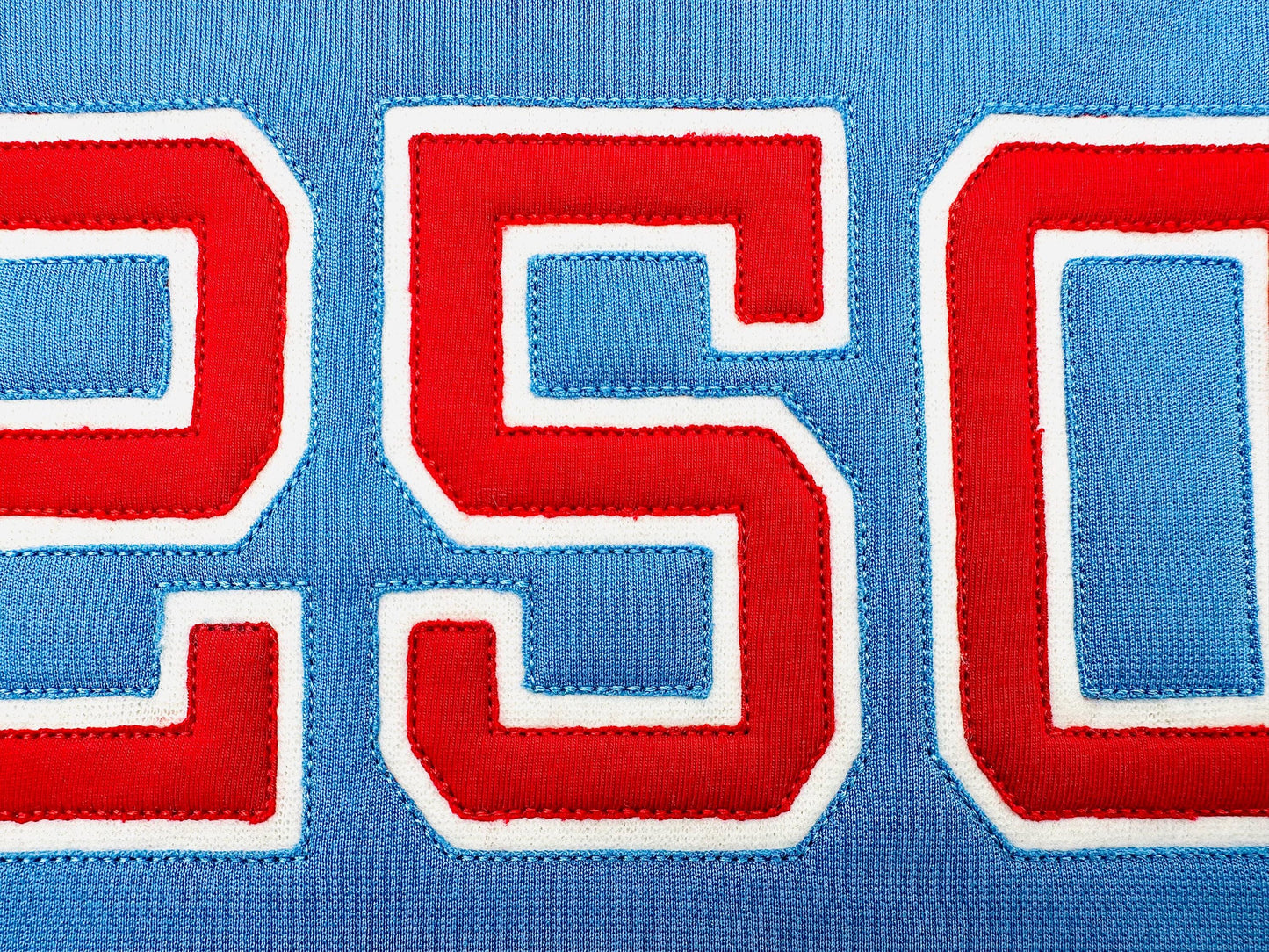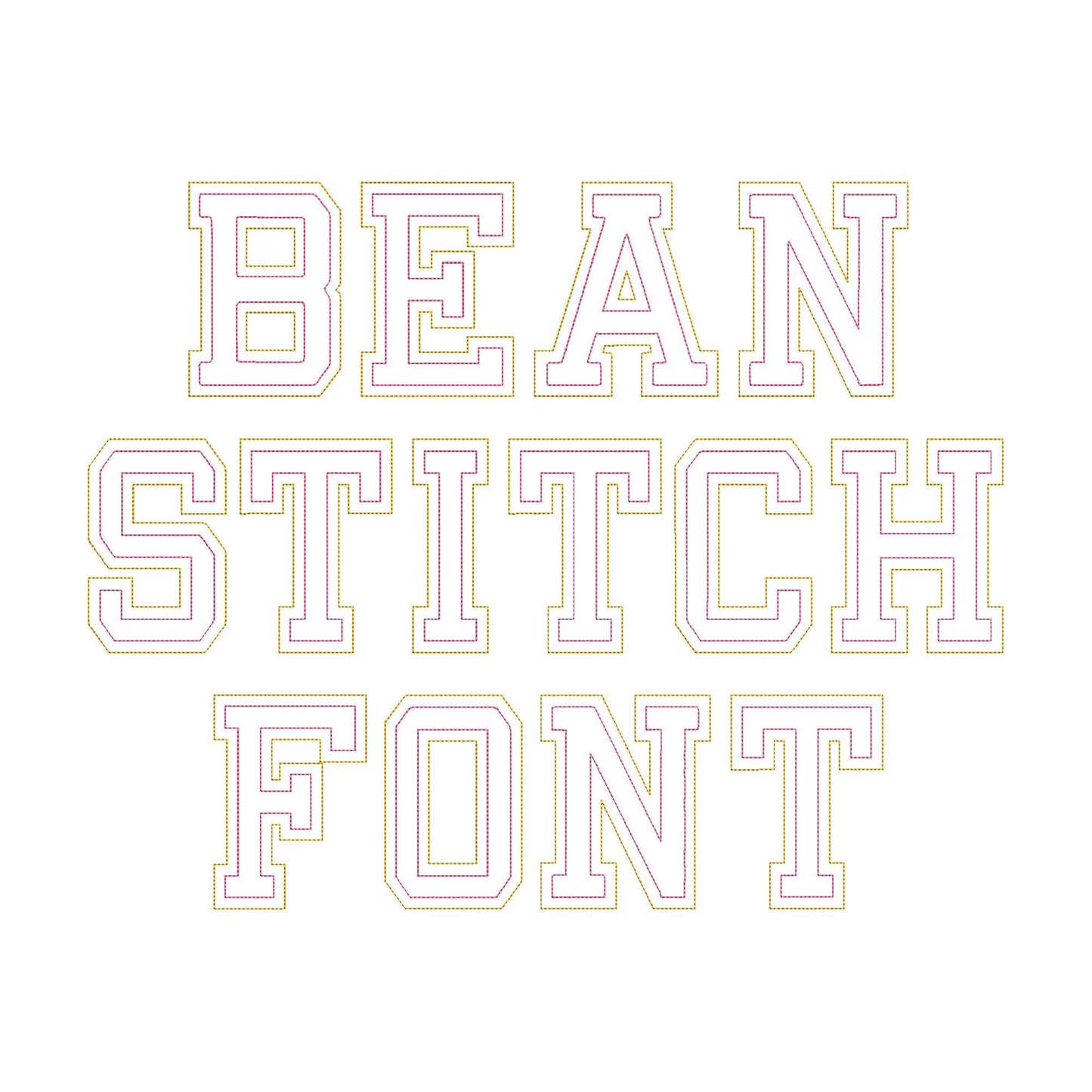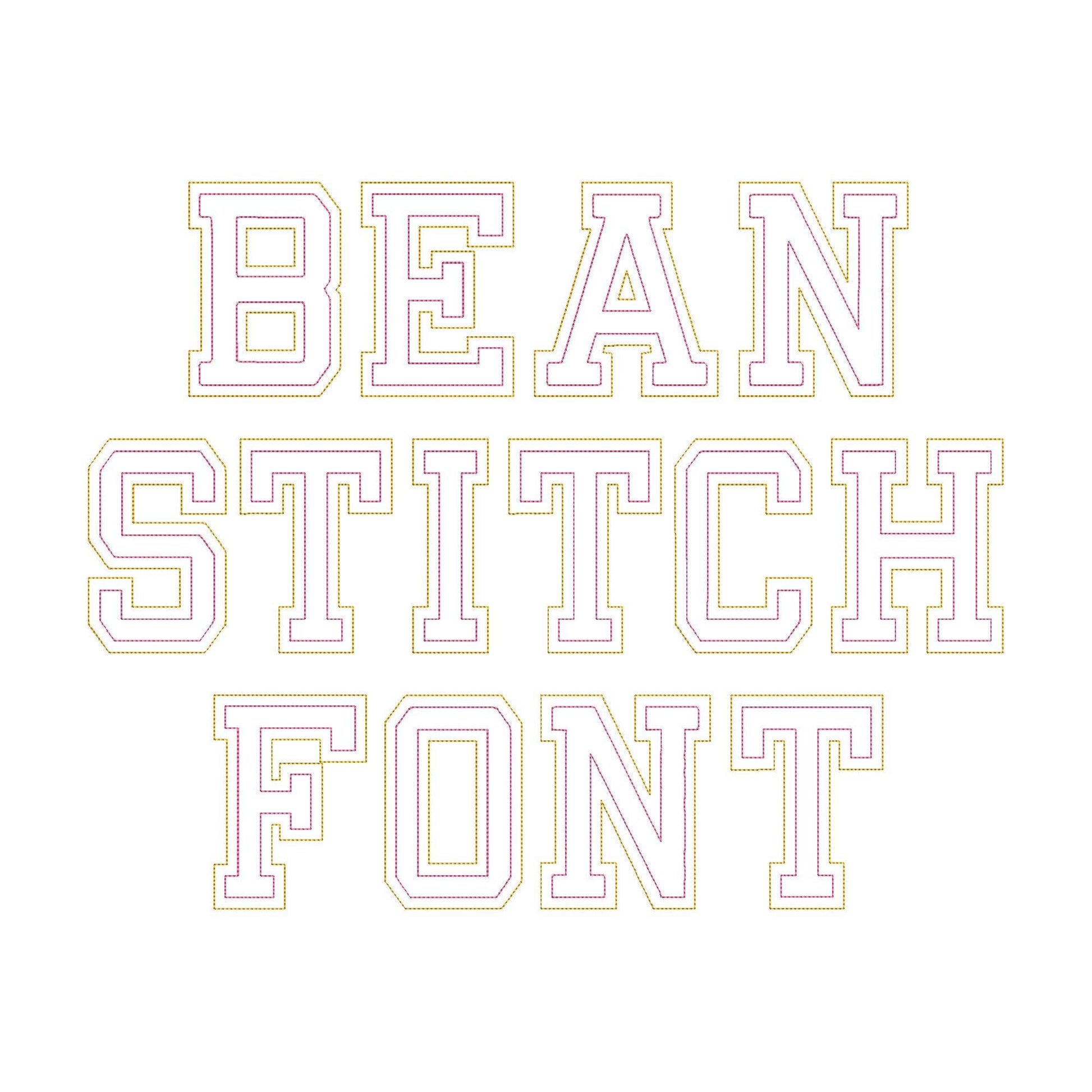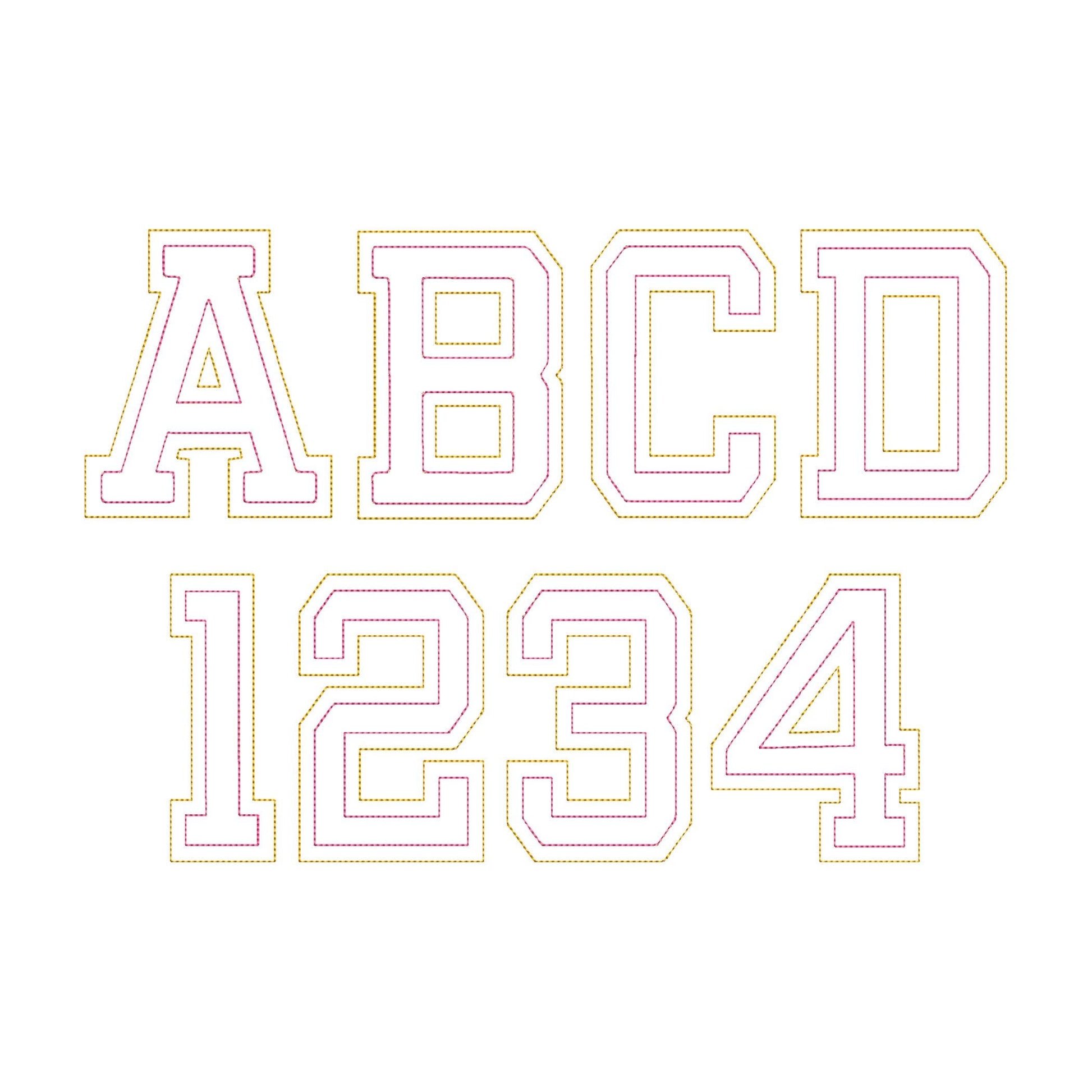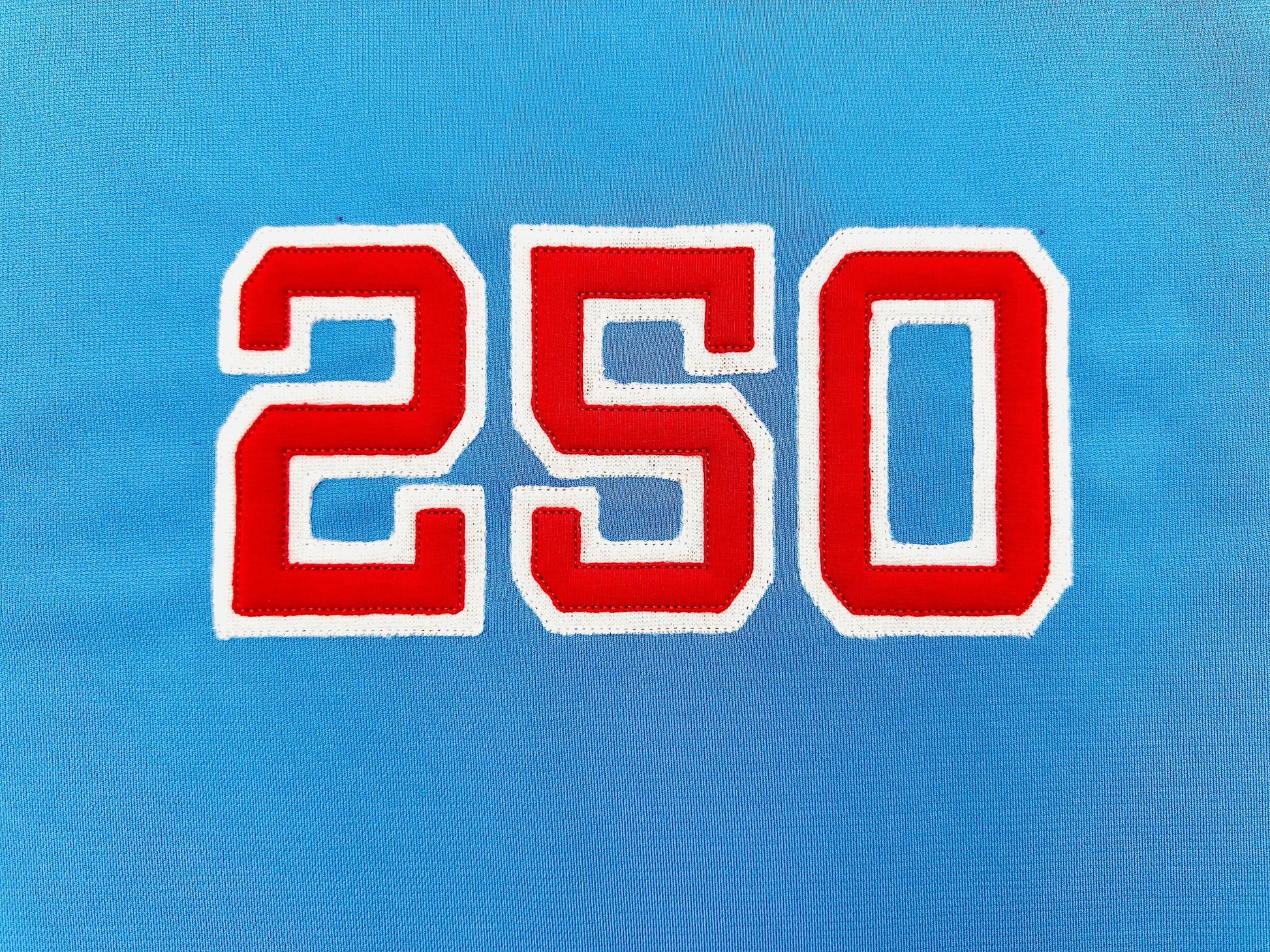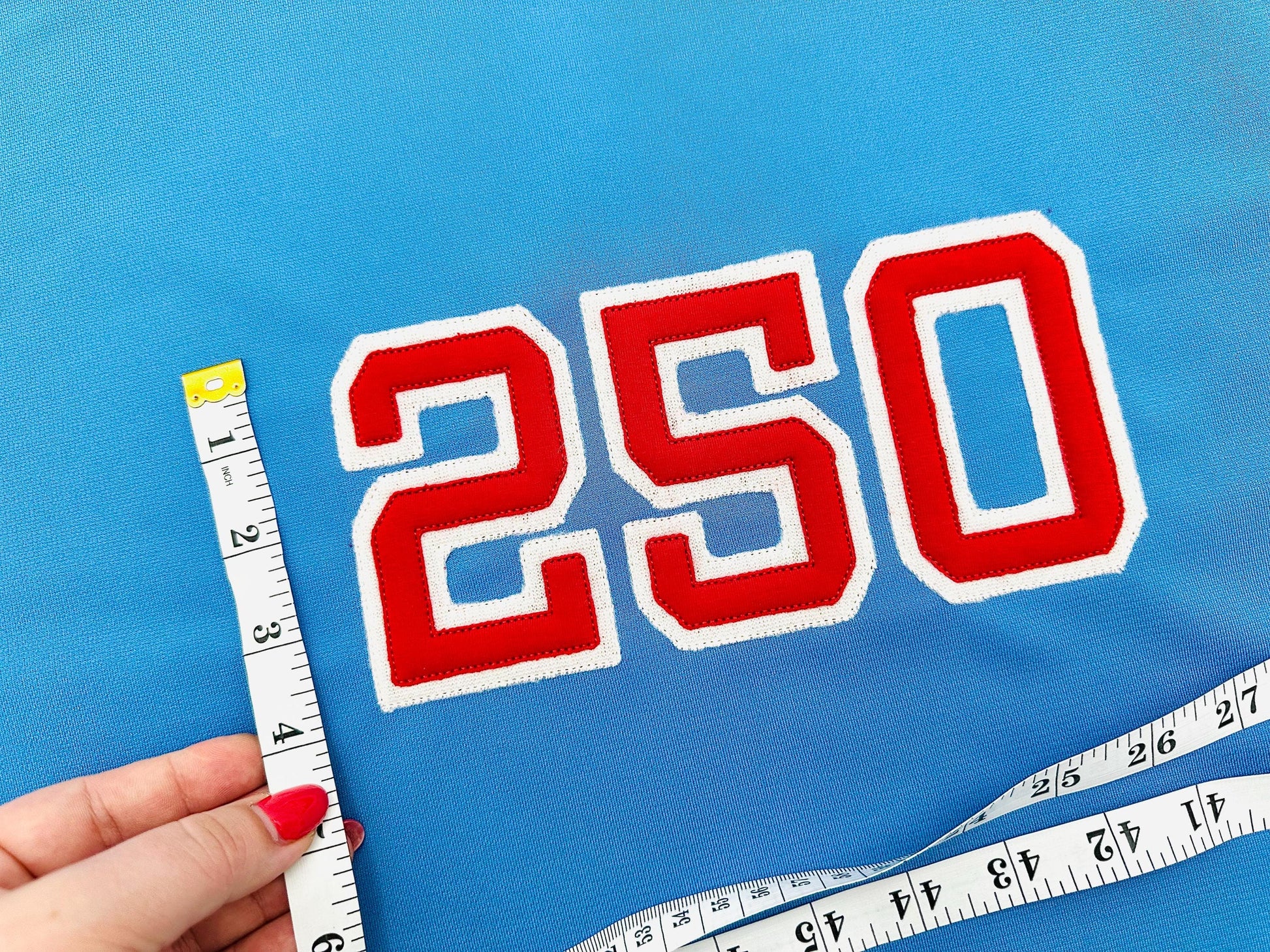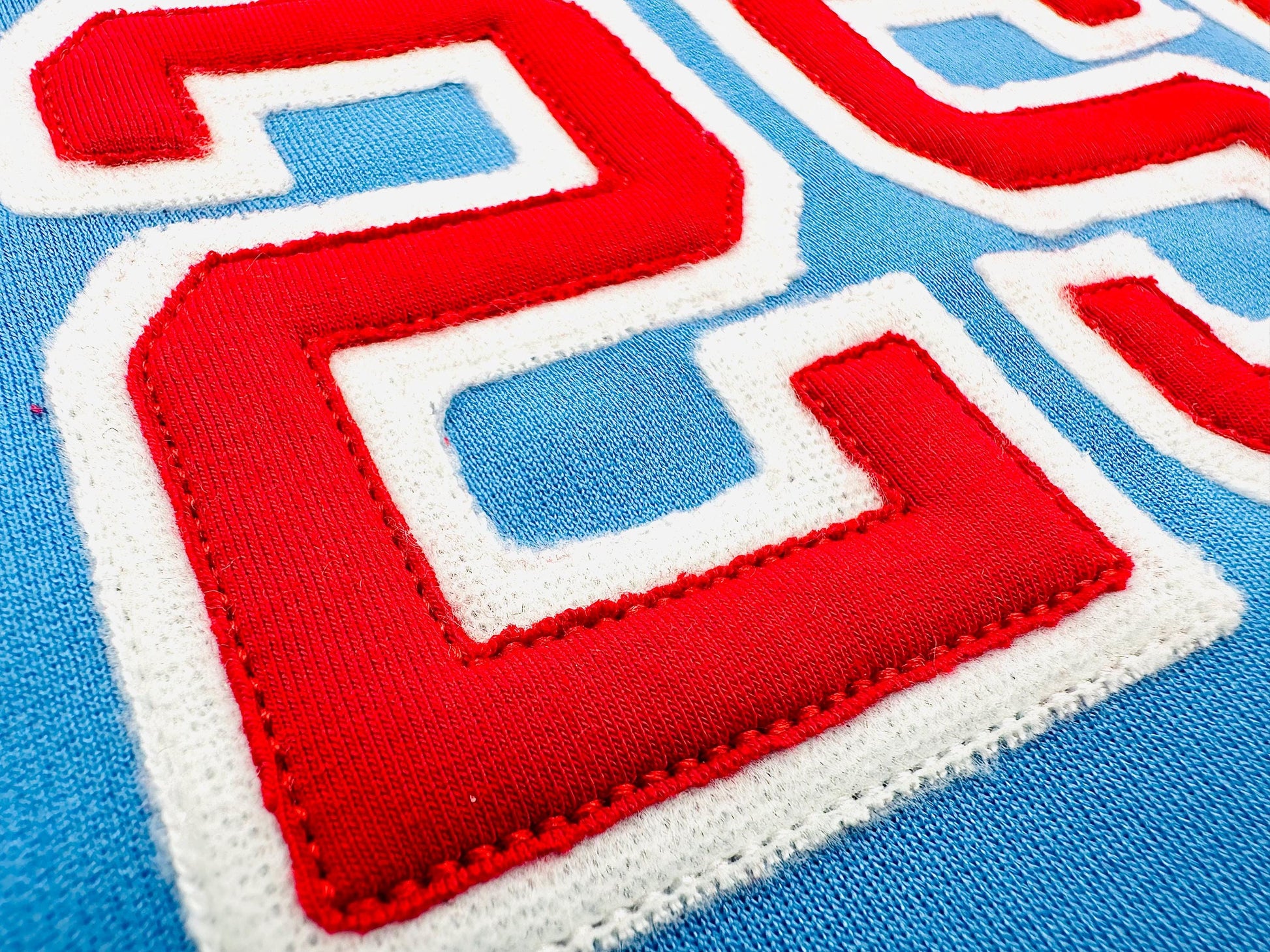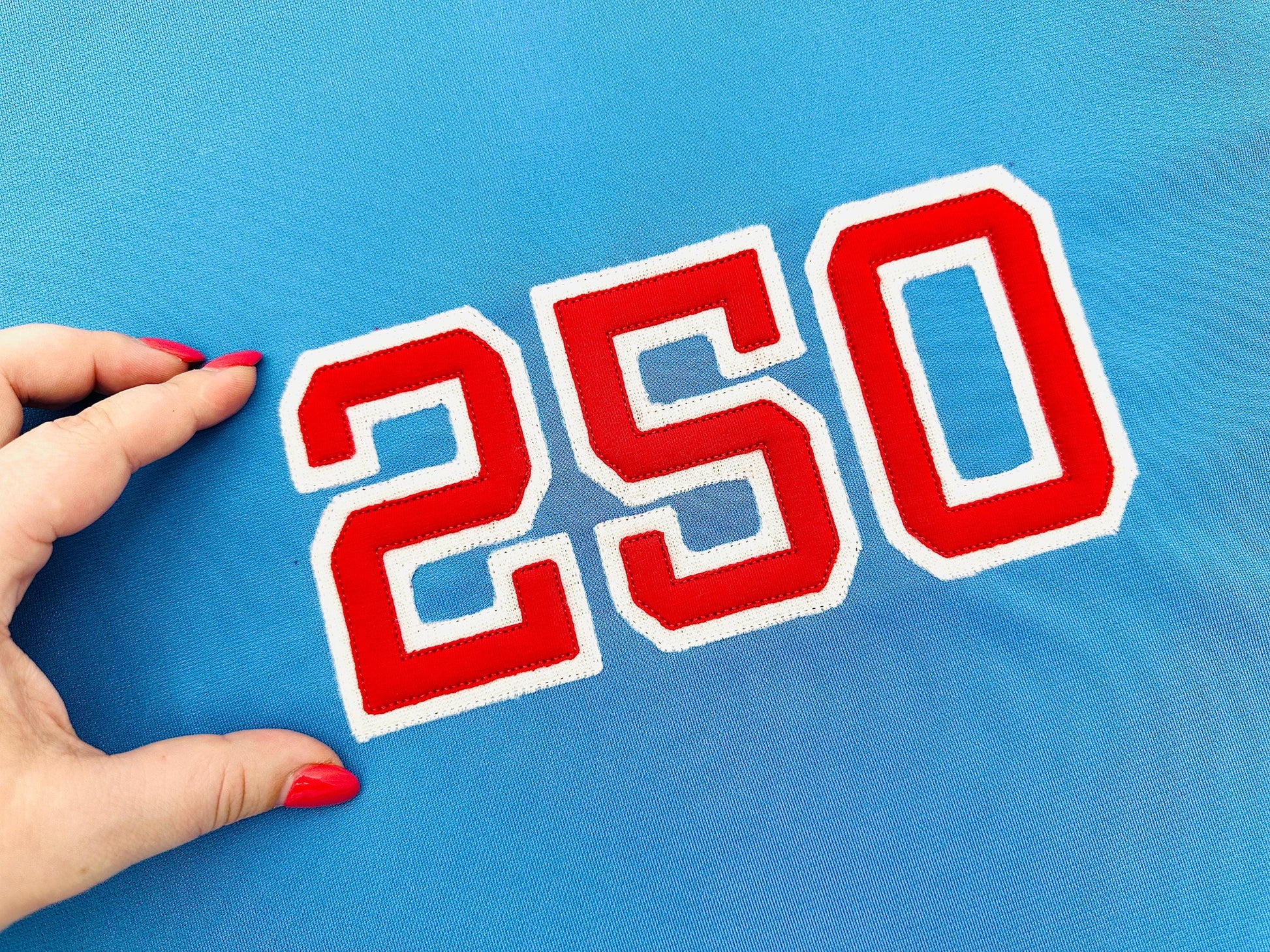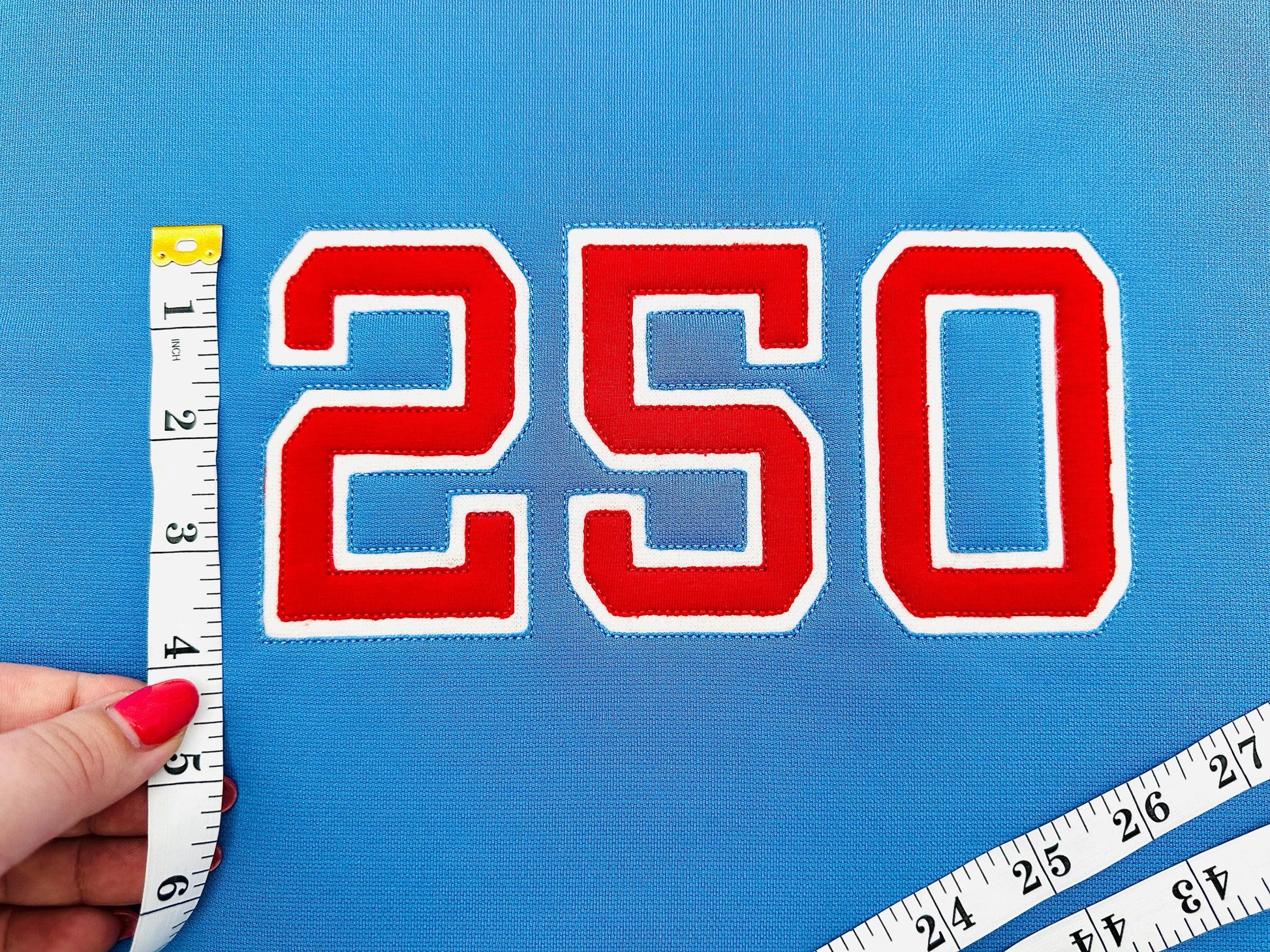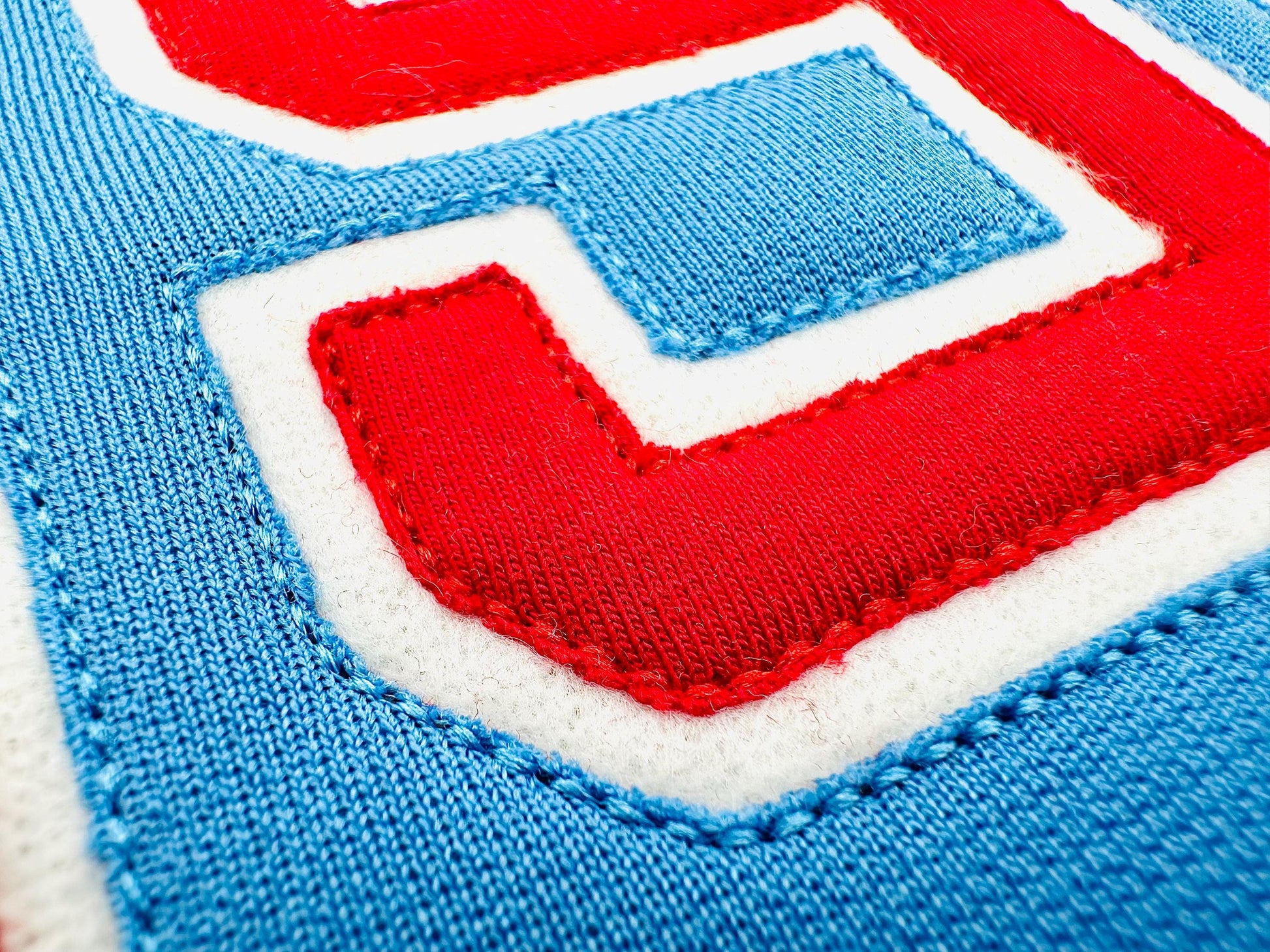
Big Raggedy Applique Font
Or click to open the linkA big sports block font with raggedy applique edges and a bean stitch outline. Great for team shirts, sweatshirts and blankets.
Uppercase letters A to Z and numbers 0 to 9, in four sizes: 3.7, 4.5, 5.3 and 6.1 inches. Use it as double-layer applique or reverse applique.
- Big raggedy applique letters A to Z
- Numbers 0 to 9
- 4 sizes: 3.7, 4.5, 5.3 and 6.1 in